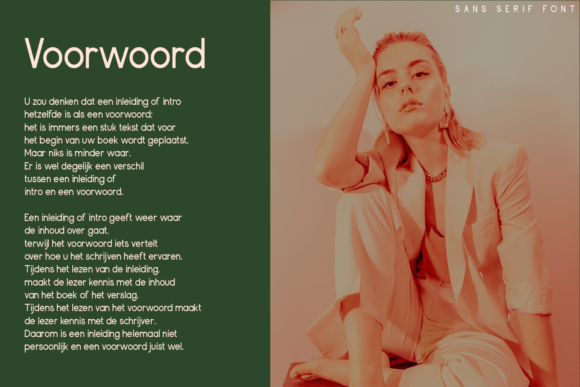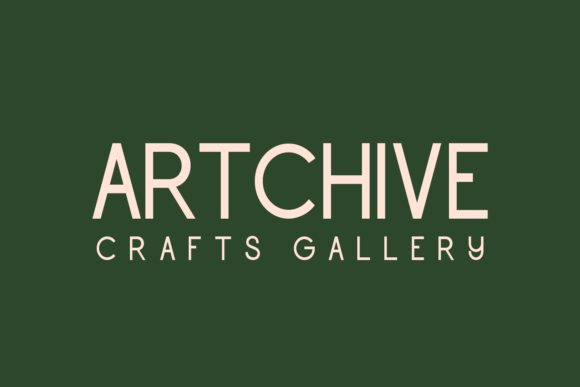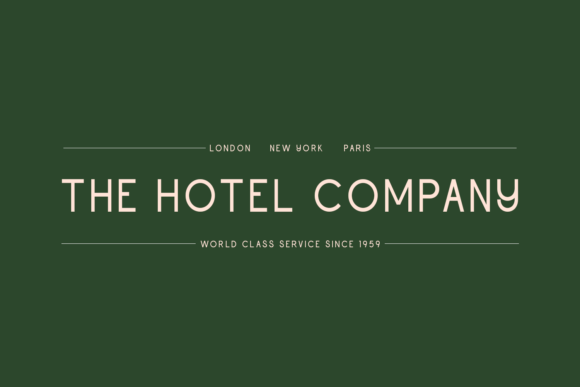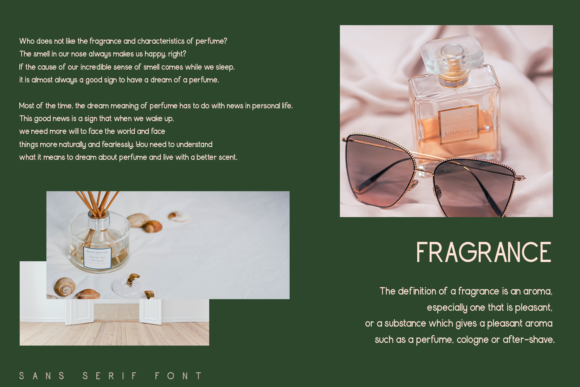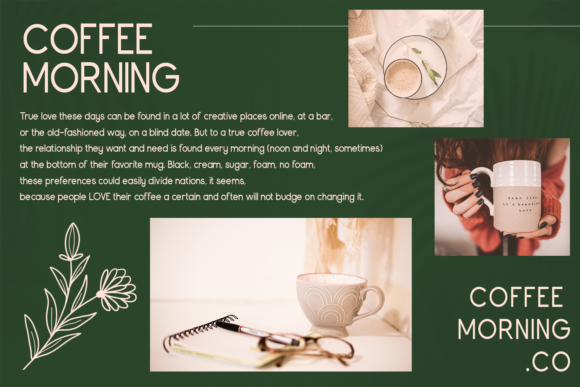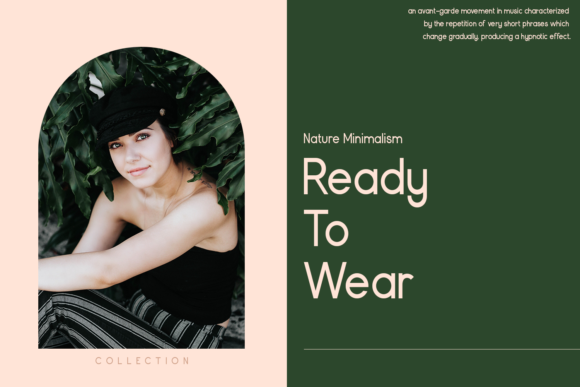
The Designer’s Delight: A Deep Dive into Grancino Font
I’ll never forget the time I was working on a sleek web design project, and my client asked me to change the font to something “more modern.” I scoured the internet, trying out font after font, until I stumbled upon Grancino. This minimal and neat sans serif font instantly caught my eye, and I knew I had found the perfect fit. In this article, I’ll share my love for Grancino, its features, and how to make the most of it in your designs.
An Honest Review of Grancino Font
What I Love About Grancino ✨
- ✅ Clean and Minimal Design: Grancino’s simplicity makes it perfect for designs that require a modern touch.
- ✅ High Versatility: This font works well for both digital and print designs, from business cards to website headers.
- ✅ Ease of Readability: Grancino’s clear lines and generous spacing ensure that your text is easy to read, even at smaller sizes.
- ⚠️ Limited Embellishments: Being a sans serif font, Grancino might not be the best choice if you’re looking for something with intricate flourishes.
- ⚠️ Not Ideal for Body Text: While readable, Grancino shines more as a display or headline font; it might not be the best choice for lengthy paragraphs.
One of the perks of Grancino is its support for OpenType features. You can access stylistic alternates and glyphs in programs like Adobe Illustrator and Photoshop. This allows you to customize your text with different letterforms and swashes, adding a unique touch to your designs.
The Backstory of Grancino Font
Grancino was designed with the modern designer in mind. Its creator aimed to produce a font that was both clean and versatile, suitable for a wide range of design projects. While the exact details of its creation might be shrouded in mystery, one thing is clear: Grancino has become a favorite among designers for its simplicity and elegance.
Q: Is Grancino suitable for body text?
A: While Grancino is readable, it’s primarily designed as a display or headline font. For lengthy body text, you might prefer a serif font for better readability.
Q: Does Grancino support OpenType features?
A: Yes, Grancino supports OpenType features, allowing you to access stylistic alternates and glyphs in compatible software.